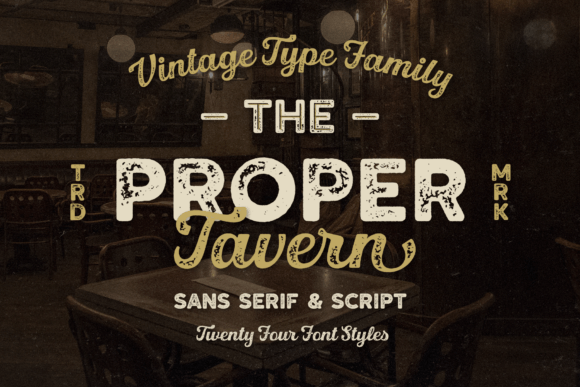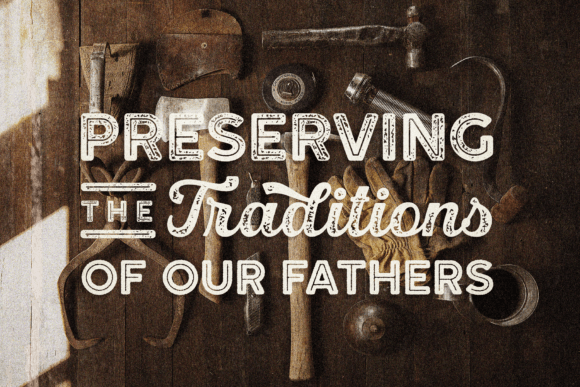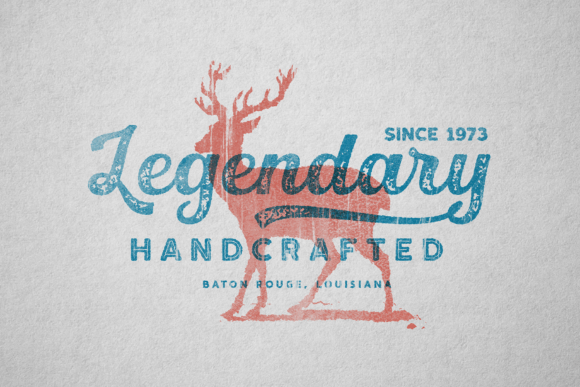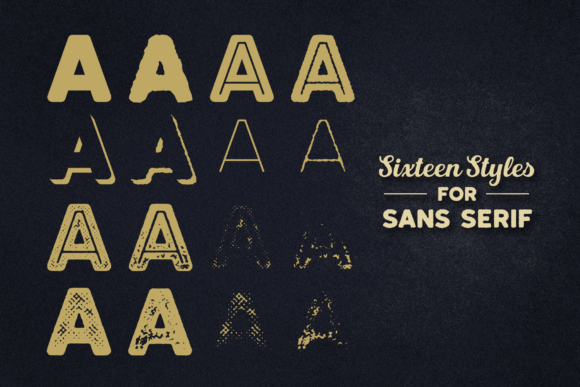
Proper Tavern Font: Vintage Sans Serif & Script Typography
About the Proper Tavern Font
Get ready to be inspired by Proper Tavern Font, a fresh and dynamic typeface for modern creators. Proper Tavern is a vintage font collection inspired by old signboards and banners. This collection includes 24 font styles – Sans Serif has a regular, rough, inline, inline rough, stamp, halftone, inline stamp, shadow, also cores also have a separate style for greater customization. The script has a regular, rough, stamp, halftone style. The script font includes alternatives for Uppercase and Lowercase, as well as swashes.
Proper Tavern’s bold, vintage aesthetic makes it ideal for headlines, short text blocks on posters, branding projects evoking a retro feel, and packaging design for craft beers or similar products. It’s less suitable for body text or UI elements due to its low readability at smaller sizes. The rough textures might also clash with a clean, modern interface.
Consider pairing Proper Tavern Sans Serif with a clean sans-serif like Open Sans for body text or a geometric sans-serif like Futura for a modern contrast. The script font pairs well with a simple serif like Garamond for a classic, balanced feel or with a more playful, rounded sans-serif for a less formal look.
The overall personality is robust and nostalgic, conveying a sense of tradition and craftsmanship. Avoid using it in contexts requiring high legibility or a contemporary, minimalist aesthetic.
Proper Tavern Font Example